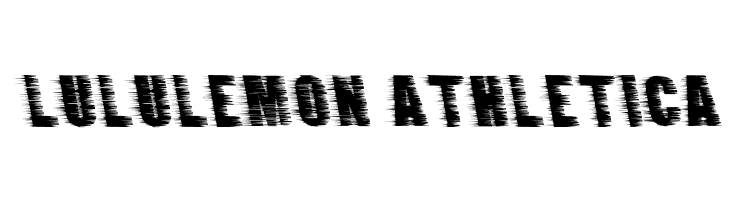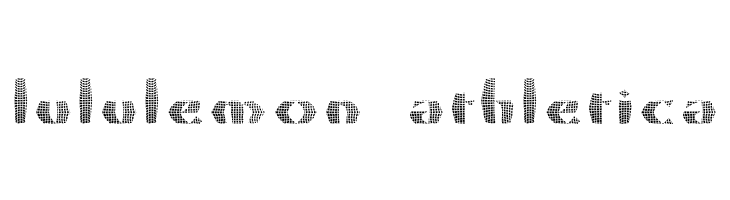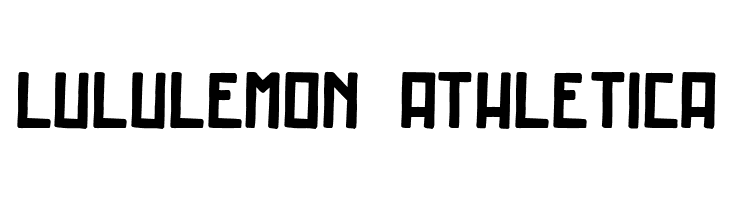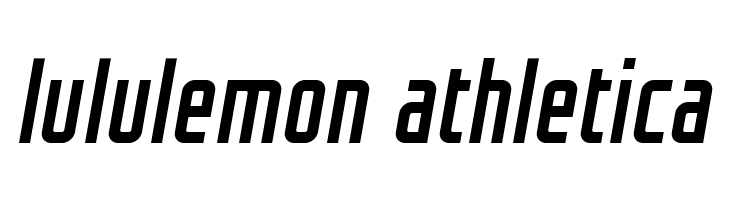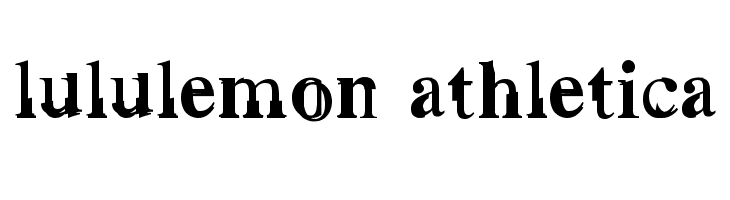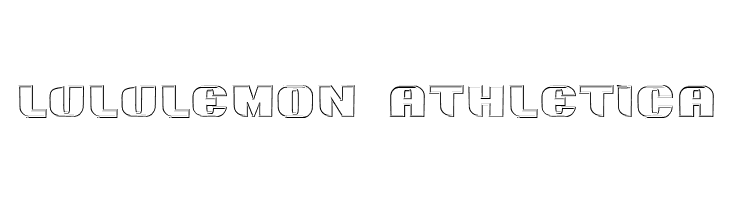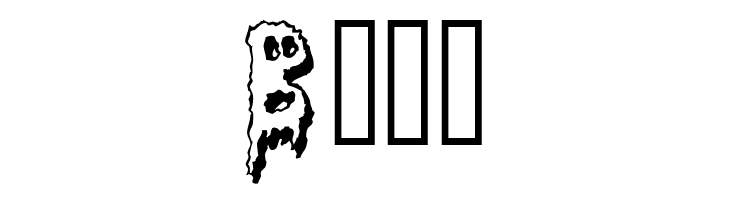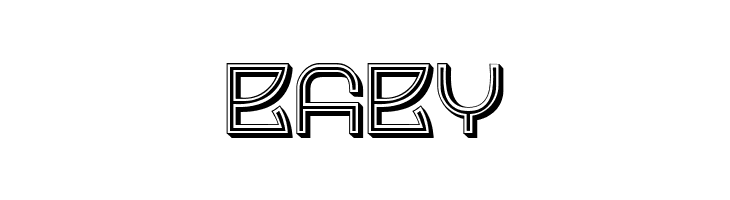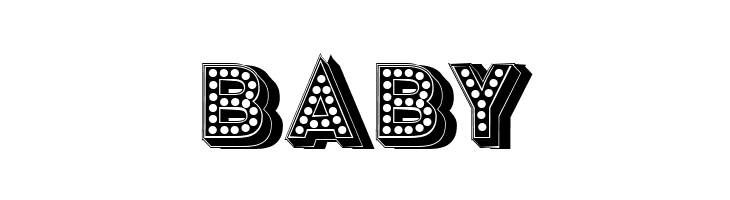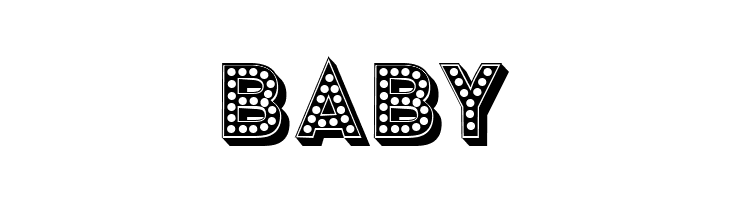
A playful, handwritten font with bold, irregular strokes and a casual, energetic style.
A bold, modern sans-serif font with geometric structure and clean lines.
A bold, modern sans-serif font with geometric lines and balanced proportions.
A distressed, chaotic font with jagged, uneven strokes for an edgy look.
An elegant, flowing script font with decorative flourishes and high contrast.
An elegant script font with flowing cursive and intricate swashes.
A modern, textured font with a mesh-like pattern and rounded, condensed characters.
A dripping, grotesque font ideal for spooky themes.
A dripping, horror-themed font with a melting appearance.
A bold, modern sans-serif font with uniform stroke width and balanced spacing.
A bold, modern sans-serif font with clean lines and a strong presence.
A bold, three-dimensional font with geometric shapes and a modern, industrial feel.
A modern, geometric typeface with clean lines and uniform stroke widths.
A bold, modern sans-serif font with geometric lines and a slightly condensed style.
A modern, oblique font with a sleek and dynamic style.
A bold, decorative font with thorn-like embellishments and a gothic style.
A bold, futuristic font with a double-line geometric design.
A bold, tall font with consistent stroke width and a modern, commanding presence.
A bold, brush-style font with dynamic, hand-painted strokes.
A dynamic and expressive handwritten cursive font with elegant flourishes.
A bold, decorative font with a marquee light effect, perfect for vintage-themed designs.
A bold, decorative font with a shadow effect and dotted embellishments.
A playful, handwritten font with tall, narrow letters and medium contrast.
A futuristic, geometric font with rounded edges and consistent weight.
A bold, rounded font with an industrial, mechanical aesthetic.
A bold, distressed font with a glitch-like effect, ideal for tech-inspired designs.
A bold, high-contrast serif font with a classic and elegant style.